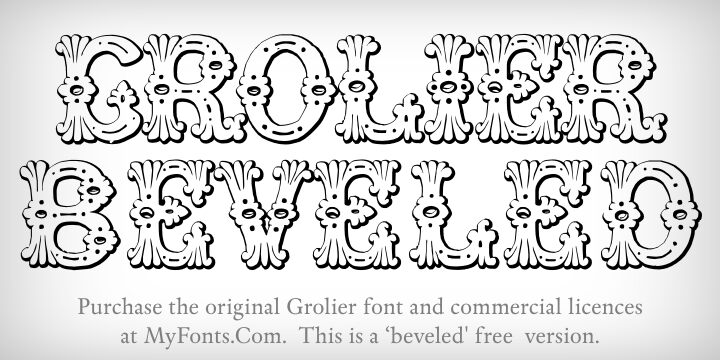
Grolier Beveled by Iza W is a free outlined cartoon display font with letters that resemble lively illustrated characters. Each form is packed with bulbous curls, dotted details, petal-like tufts, and tiny face-like marks. The effect is busy, odd, and cheerfully theatrical.
Its flower and creature motifs can become part of the artwork on children's book covers, party posters, game graphics, and novelty packaging, rather than sitting apart as ordinary type. The comic detail and puppet-like shapes are especially suited to young audiences and brands built around playful monsters, garden characters, or eccentric mascots.